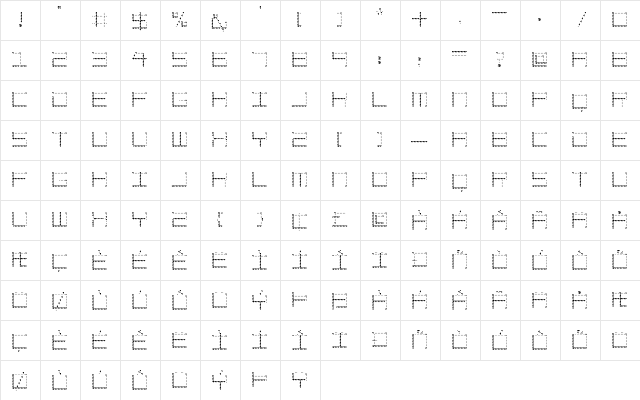
Amaya Technical Sharp Regular
Design Context for Amaya Technical Sharp Typeface
Amaya Technical Sharp has a distinctly futuristic character, with geometric precision and clean angles that feel at home in technology, gaming, and sci-fi contexts.
Pro Tip: Try Amaya Technical Sharp with generous letter-spacing in UI labels and navigation — the geometric forms benefit from room to breathe.